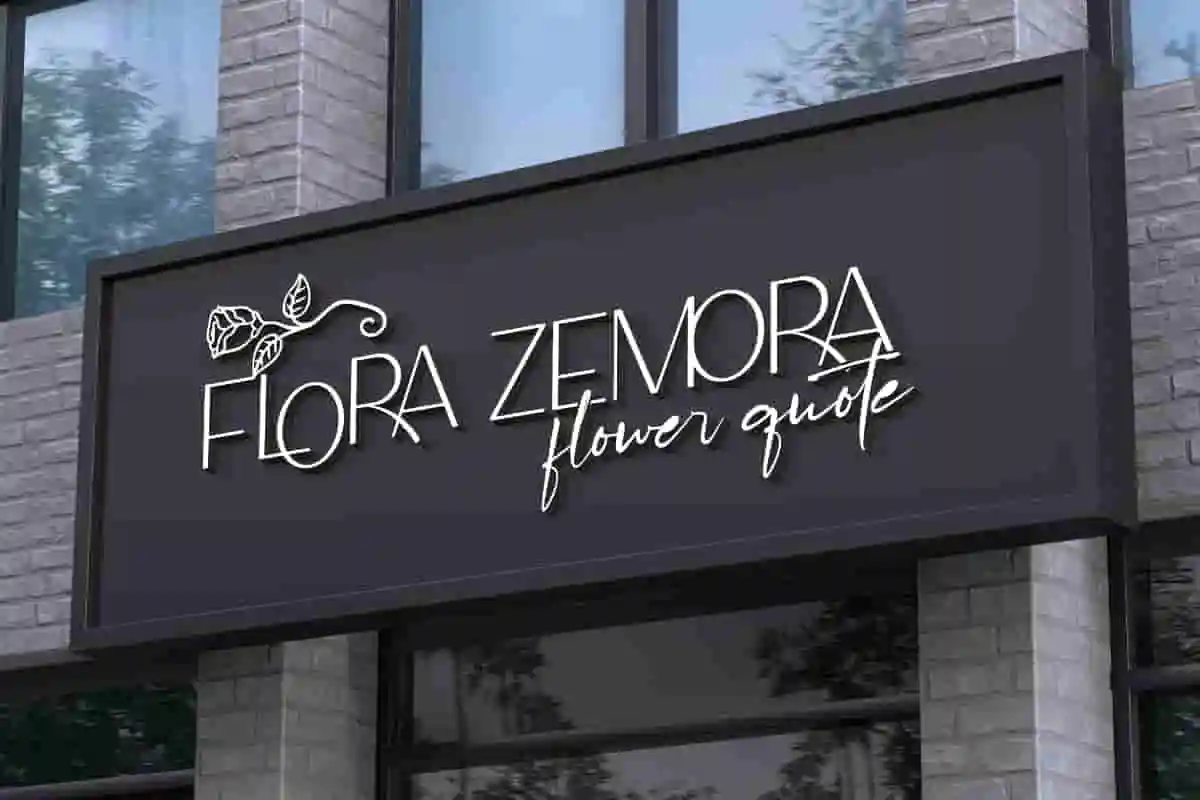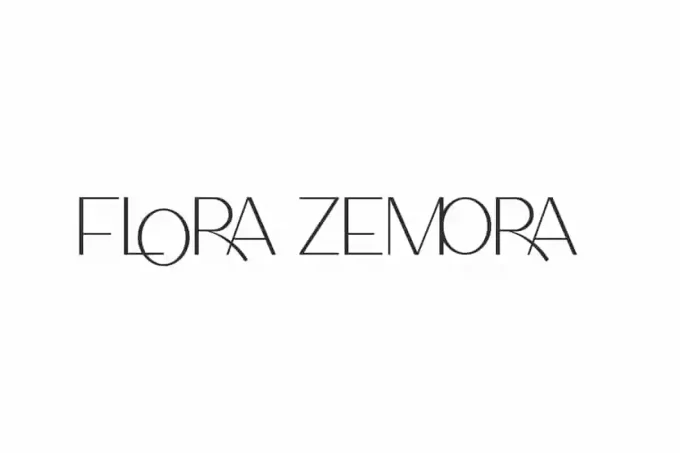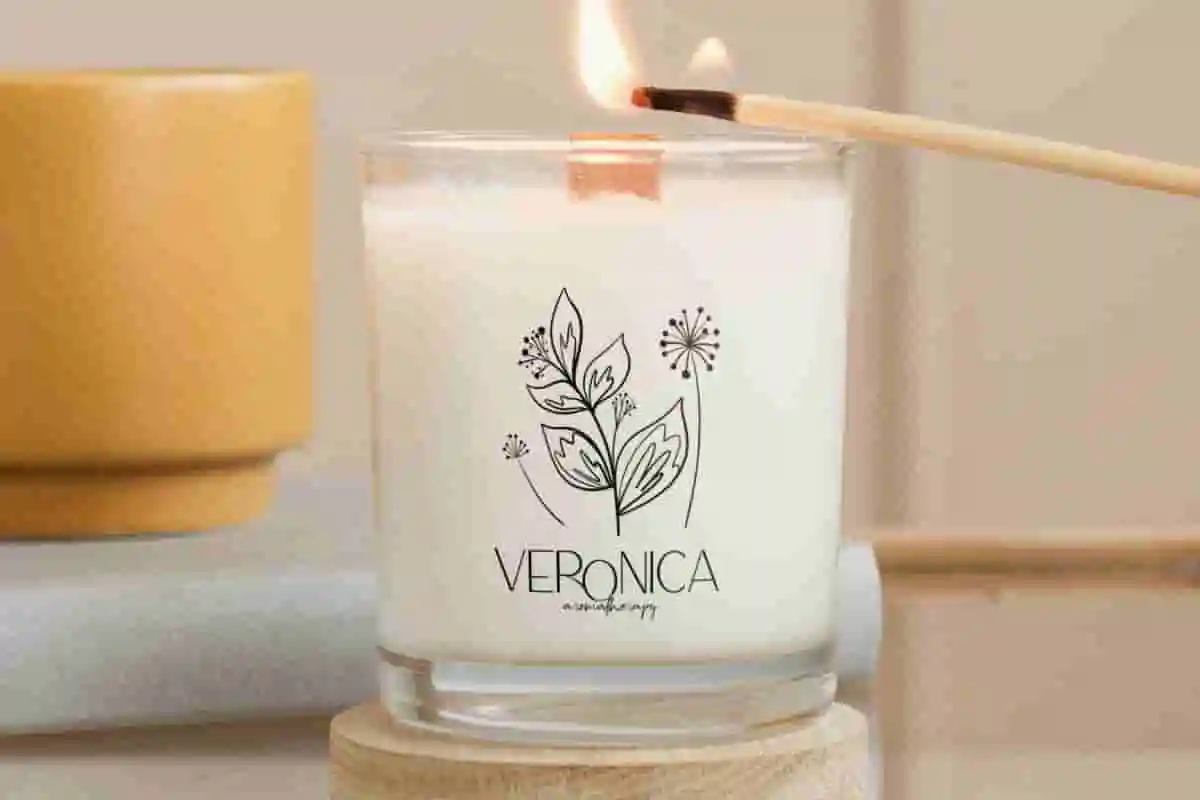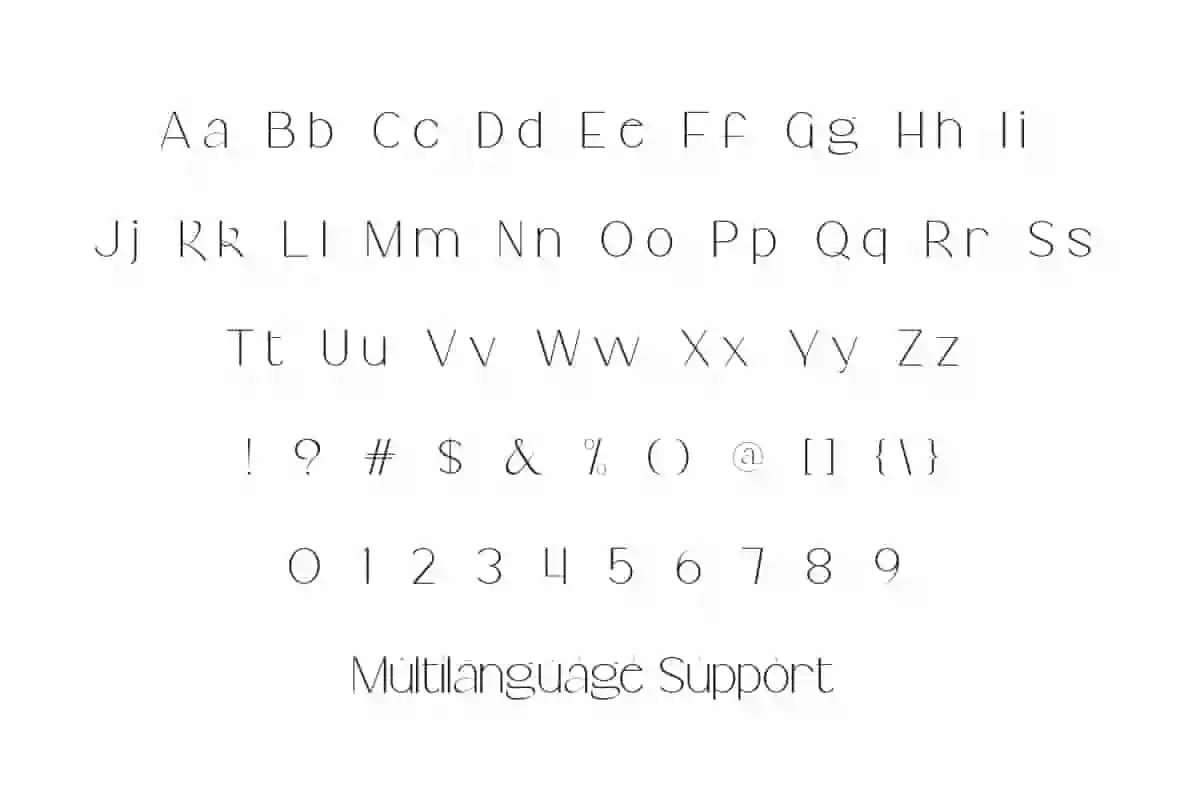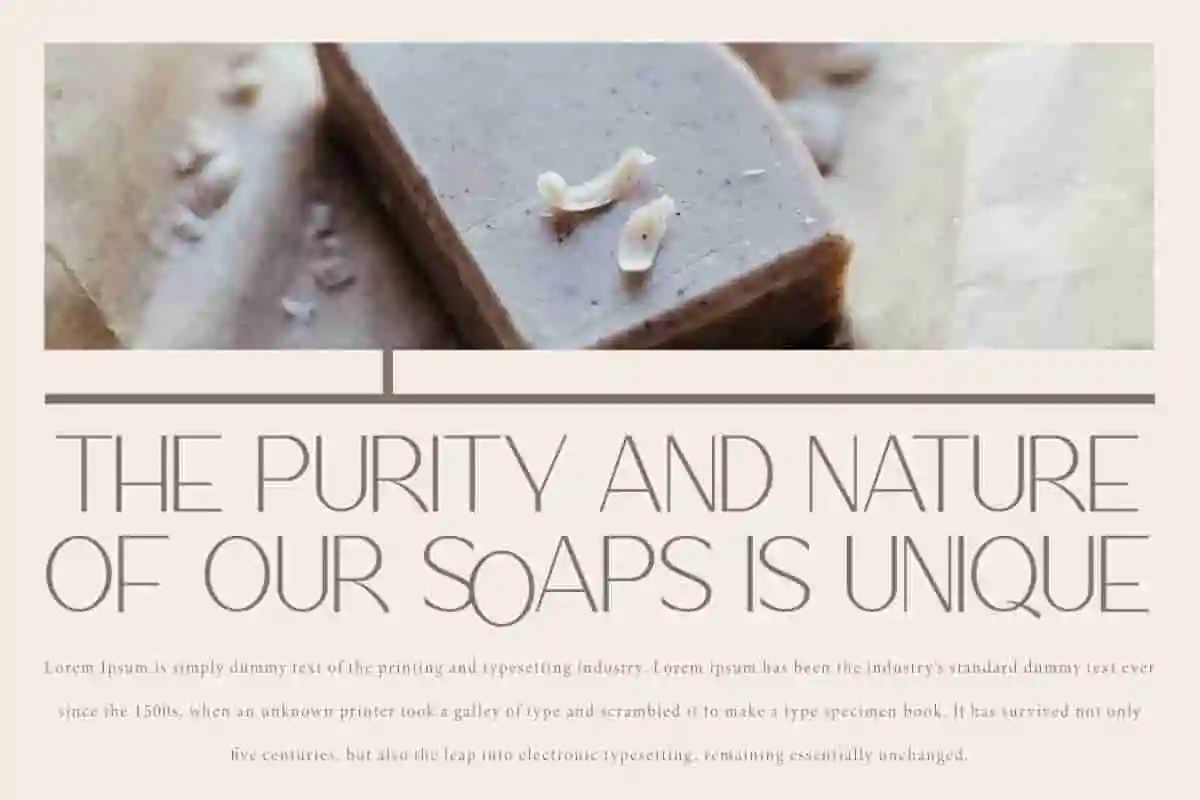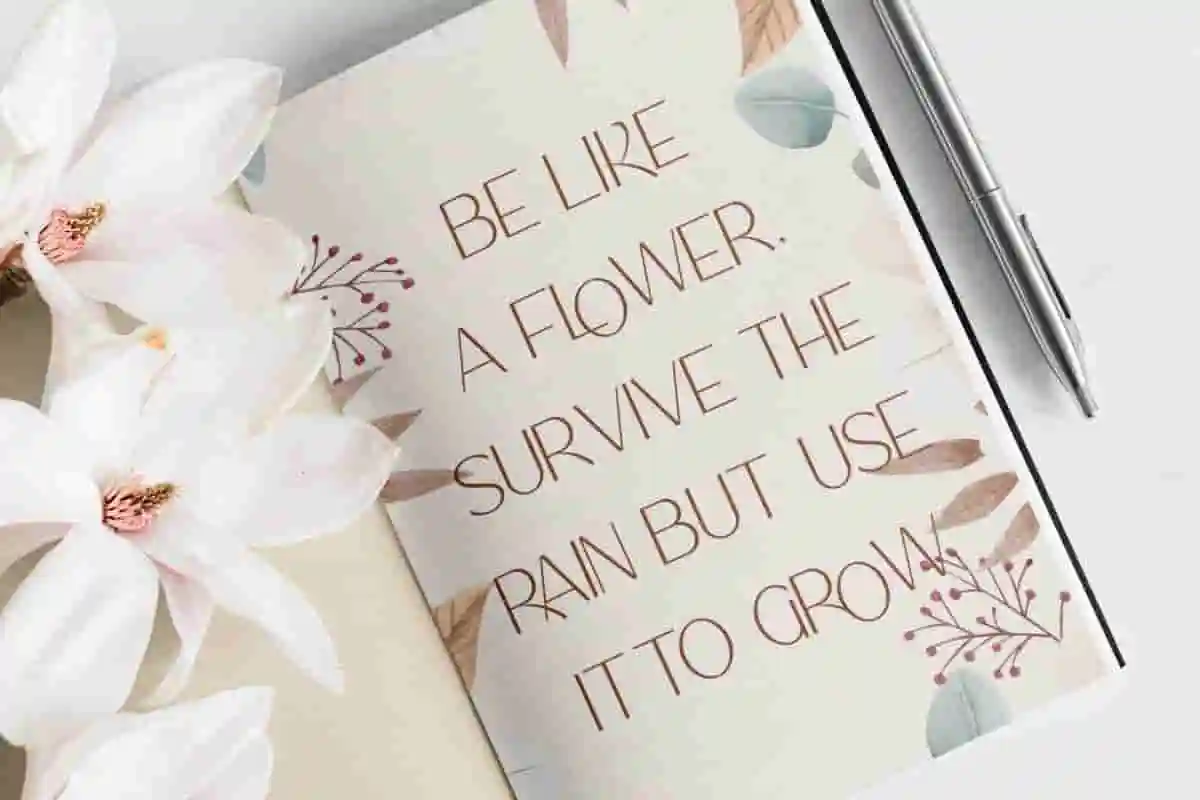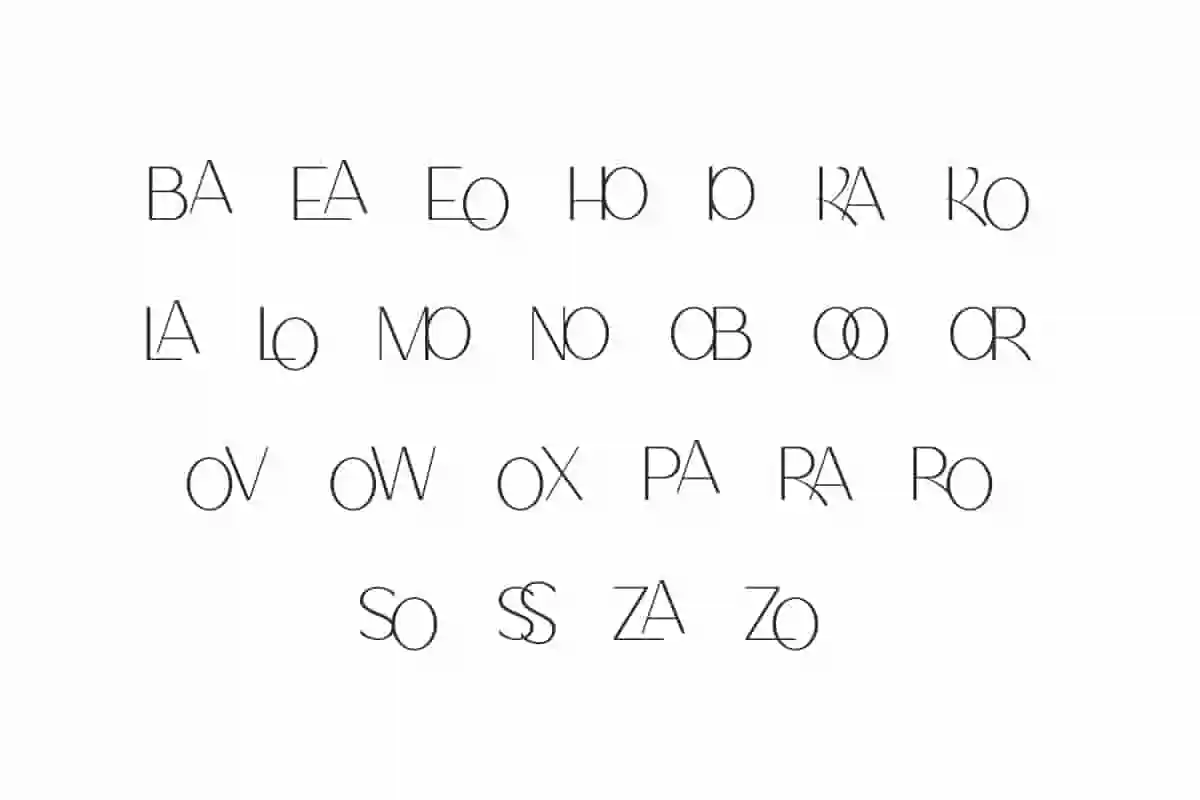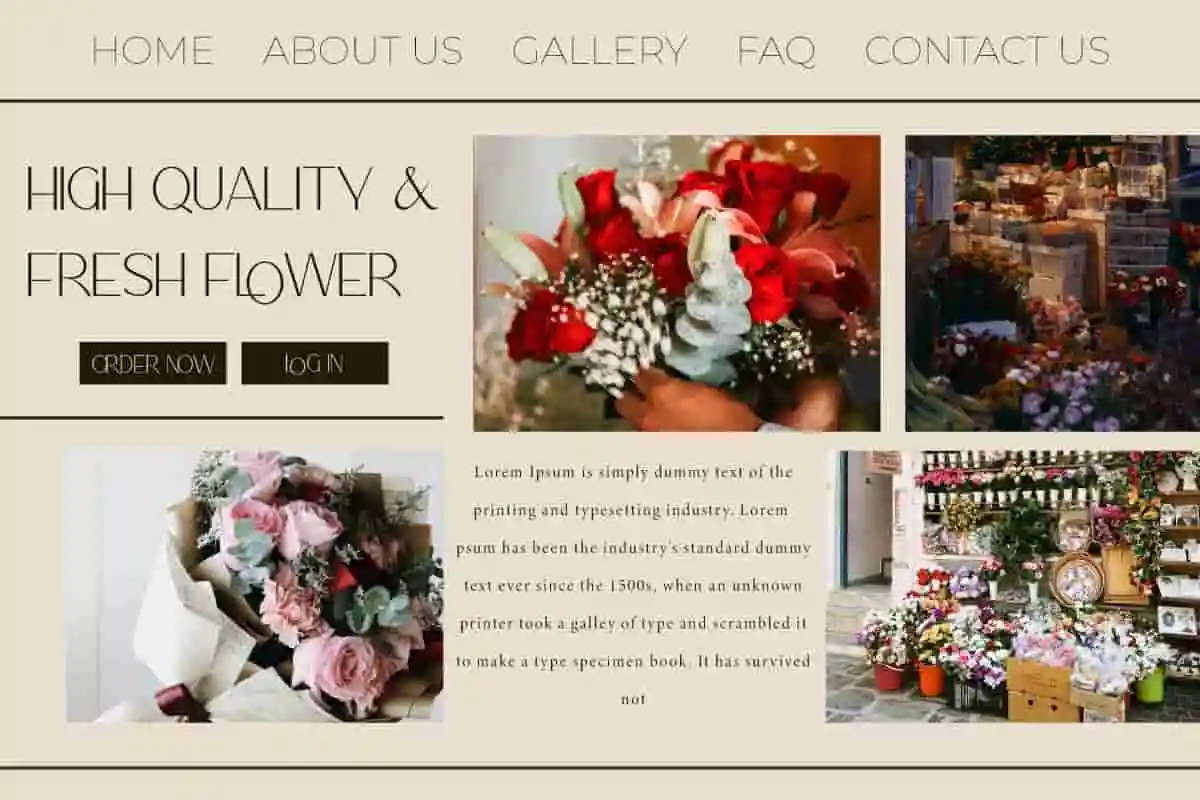
Flora Zemora Font is a sophisticated display font that is very impressive with equally beautiful ligatures. Perfect for creative design, digital marketing, etc.
Flora Zemora Font is a modern sans serif display font that is very charming with all its minimalist impressions producing a premium feel. With a combination of ligatures that look unique, making this font suitable for use in blogs, cover, headers, headline, labels, logos, mockup, product packaging, quotes, screen print, signage, stickers, title, website and many more.
Flora Zemora Font includes full set of Uppercase and Lowercase Basic Characters, Numbers, Punctuation, Symbols and Ligature. Elegant typography with all its beauty can work very well for accessories and gifts, advertising, author, bouquet, cafe, fashion, florist, graphic designer, handicraft, home furniture, photography, printing, publisher, real estate, restaurant, skincare, spa salon.